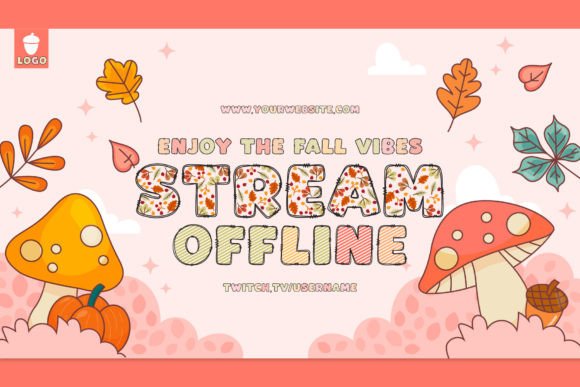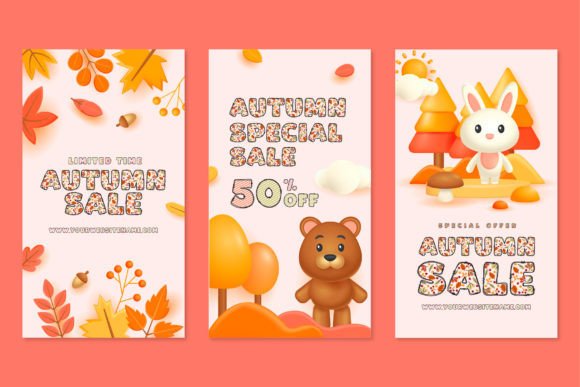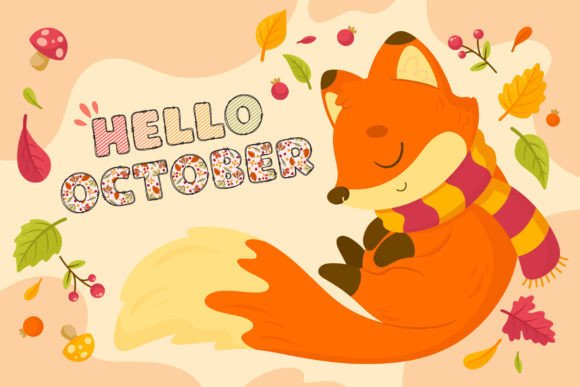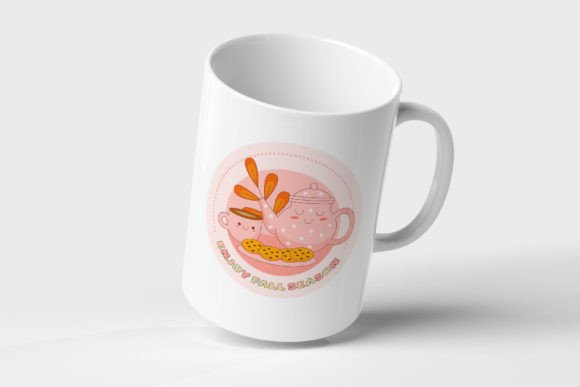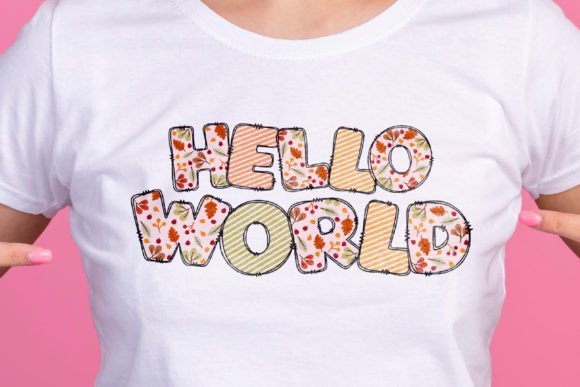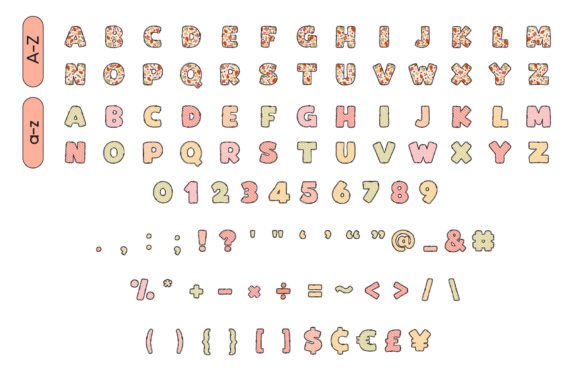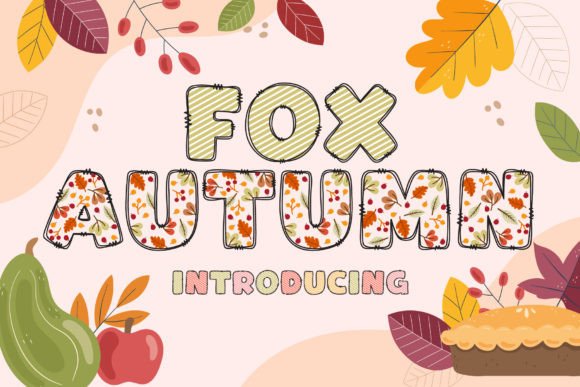
Introducing Fox Autumn Font: The Perfect Addition to Your Creative Projects
Are you looking for a font that can add a touch of warmth and coziness to your designs? Look no further than Fox Autumn Font, a cute and fun color display font that’s perfect for creating gorgeous invitations, beautiful stationary art, eye-catching social media posts, and cute greeting cards.
What Makes Fox Autumn Font So Special?
Fox Autumn Font is a unique and authentic font that’s designed to evoke the feeling of fall. Its rustic and charming feel makes it perfect for designers and crafters who want to add a personal touch to their projects. With Fox Autumn Font, you can create stunning designs that are sure to capture the attention of your audience.
Uses for Fox Autumn Font
Fox Autumn Font is a versatile font that can be used for a variety of creative projects. Here are some ideas to get you started:
- Invitations: Create beautiful invitations for weddings, birthday parties, and other special occasions with Fox Autumn Font.
- Stationary Art: Add a touch of elegance to your stationary art with Fox Autumn Font. Perfect for creating stunning journals, planners, and notebooks.
- Social Media Posts: Make your social media posts stand out with Fox Autumn Font. Use it to create eye-catching graphics, quotes, and promotions.
- Greeting Cards: Create cute and personalized greeting cards for special occasions like holidays, birthdays, and anniversaries.
Why Designers and Crafters Love Fox Autumn Font
Fox Autumn Font has quickly become a favorite among designers and crafters due to its unique and authentic feel. Here are some reasons why:
- Easy to Read: Fox Autumn Font is clear and easy to read, making it perfect for body text and headings.
- Customizable: Fox Autumn Font comes in a range of colors and can be easily customized to fit your brand’s style.
- Unique: Fox Autumn Font has a unique and distinctive look that sets it apart from other fonts.
Tips for Using Fox Autumn Font
Here are some tips for getting the most out of Fox Autumn Font:
- Pair with Other Fonts: Pair Fox Autumn Font with other fonts to create a unique and interesting look.
- Use for Headings: Use Fox Autumn Font for headings and titles to add a touch of elegance to your designs.
Fox Autumn Font is a beautiful and versatile font that’s perfect for designers and crafters who want to add a touch of warmth and coziness to their designs. With its authentic feel and range of uses, Fox Autumn Font is sure to become a favorite in your design toolkit. So why wait? Add Fox Autumn Font to your creative projects today and notice the difference it makes!